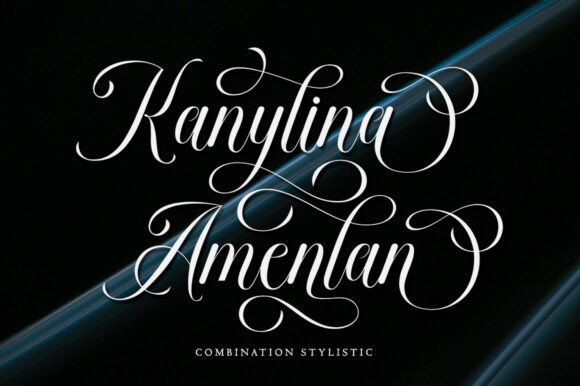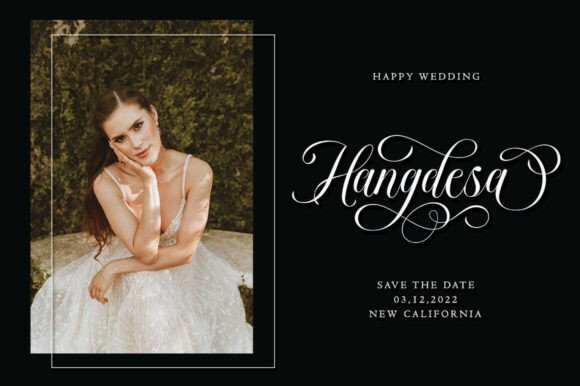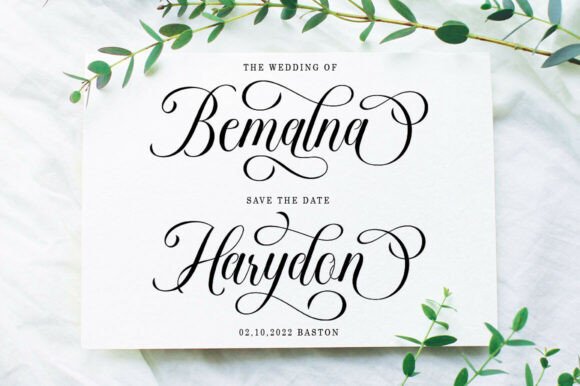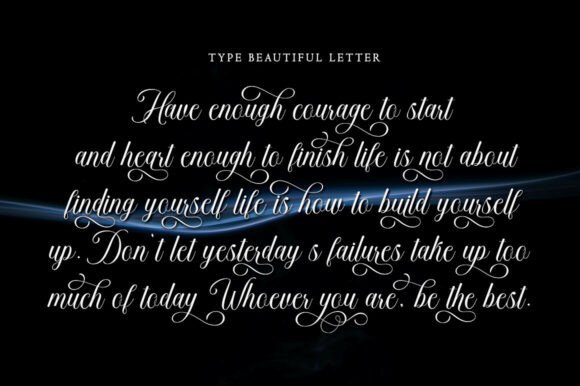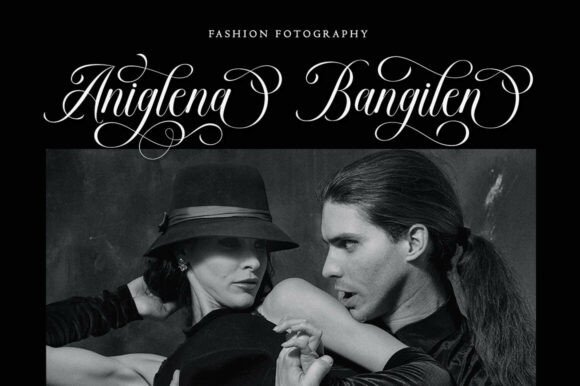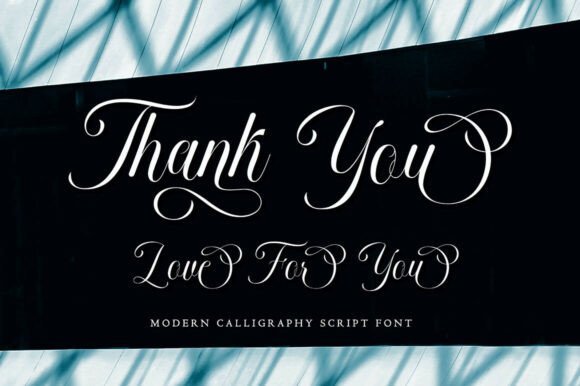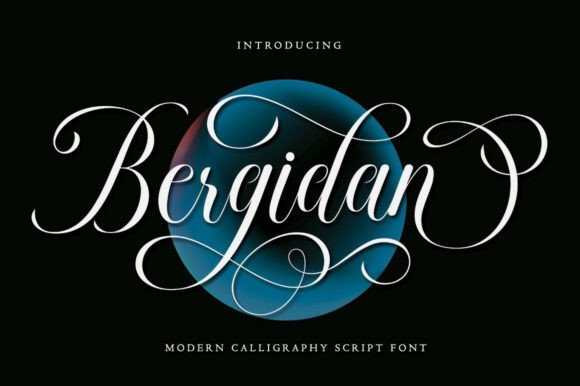
Bergidan Font: Elevate Your Design with Luxury and Grace
In the world of typography, few fonts capture the essence of luxury and sophistication as effortlessly as Bergidan. This modern calligraphy script font is a masterpiece of refined elegance, designed to elevate your aesthetic and leave a lasting impression. With its dramatic flourishes, high-contrast strokes, and hand-inked texture, Bergidan is the perfect choice for designers and crafters seeking to add a touch of high-end sophistication to their projects.
The Art of Bergidan
Bergidan is more than just a font – it’s an experience. Its sweeping curves and fluid lines evoke a sense of drama and movement, as if each character is dancing across the baseline. The high-contrast strokes add a level of depth and dimensionality, creating a sense of visual interest that draws the viewer in. Whether you’re designing wedding invitations, branding materials, or packaging, Bergidan’s unique blend of modernity and classic elegance is sure to captivate your audience.
Crafting Luxury: The Features of Bergidan
So what sets Bergidan apart from other script fonts? Here are just a few of its standout features:
• Dramatic flourishes: Bergidan’s sweeping flourishes add a touch of drama and sophistication to any design.
• High-contrast strokes: The font’s high-contrast strokes create a sense of depth and dimensionality, adding visual interest to your designs.
• Hand-inked texture: Bergidan’s refined, hand-inked texture gives it a unique, organic feel that’s perfect for high-end designs.
• Modern calligraphy script: Bergidan’s modern calligraphy script style makes it perfect for designers seeking a fresh, contemporary look.
Perfect for High-End Designs
Bergidan is specifically designed for use in high-end designs, where luxury and sophistication are paramount. Here are just a few examples of how you can use Bergidan to elevate your designs:
• Wedding invitations: Bergidan’s elegant, refined style makes it perfect for wedding invitations, announcements, and other formal stationery.
• Upscale branding: Use Bergidan to create a luxurious brand identity that sets your business apart from the competition.
• Signature logos: Bergidan’s unique blend of modernity and classic elegance makes it perfect for creating signature logos that are both memorable and sophisticated.
• Boutique packaging: Add a touch of luxury to your packaging with Bergidan, perfect for high-end boutiques, fashion brands, and artisanal businesses.
Why Choose Bergidan?
With so many fonts to choose from, why should you choose Bergidan? Here are just a few reasons why Bergidan stands out from the crowd:
• Sophisticated craftsmanship: Bergidan is a testament to sophisticated craftsmanship, with every character carefully designed to perfection.
• Timeless romance: Bergidan’s classic elegance and refined style make it a timeless choice that will never go out of fashion.
• Versatility: Bergidan is versatile enough to be used in a wide range of designs, from wedding invitations to branding materials and packaging.
In conclusion, Bergidan is a modern calligraphy script font that defines luxury and grace. With its dramatic flourishes, high-contrast strokes, and hand-inked texture, Bergidan is the perfect choice for designers and crafters seeking to add a touch of high-end sophistication to their projects. Whether you’re designing wedding invitations, branding materials, or packaging, Bergidan is sure to elevate your aesthetic and leave a lasting impression.